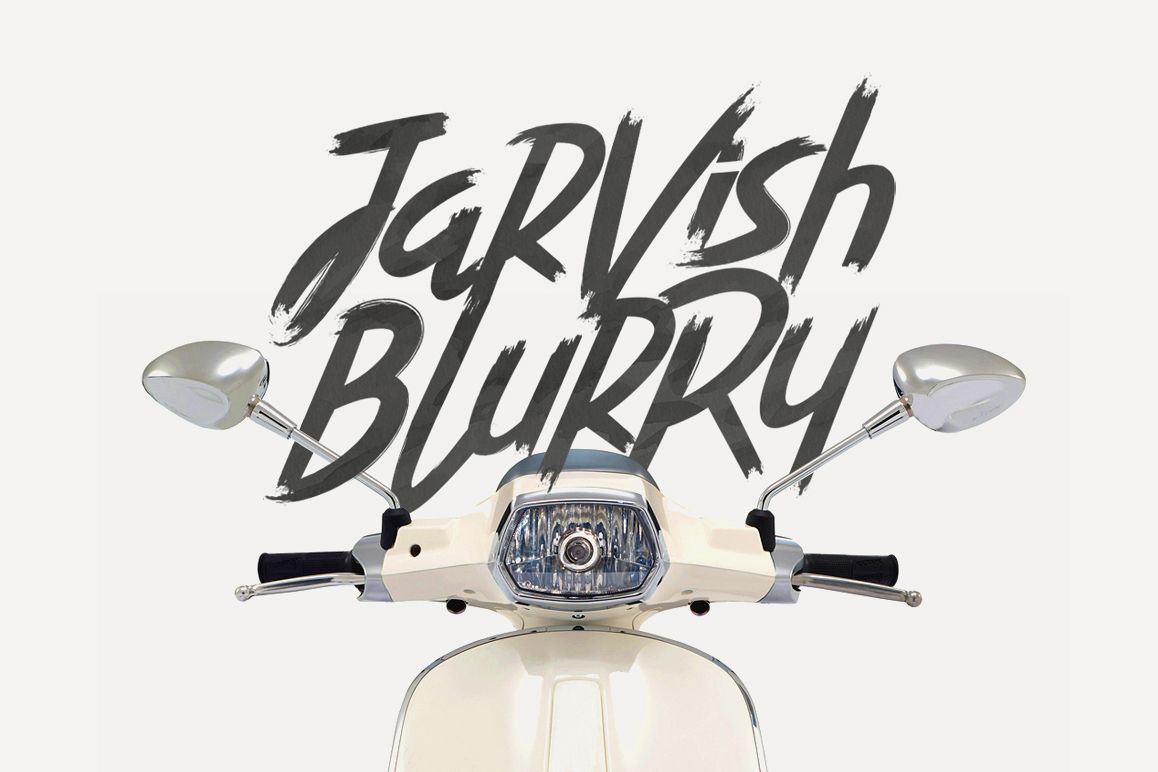
Jarvish Blurry
by Maulana Creative
Give your designs an authentic brush handcrafted feel. "Jarvish Blurry" is perfectly suited to stationery, logos and much more.